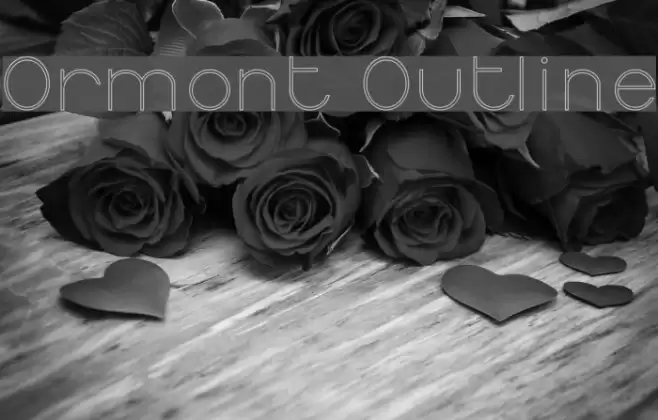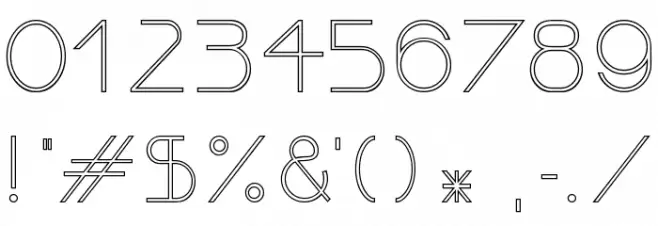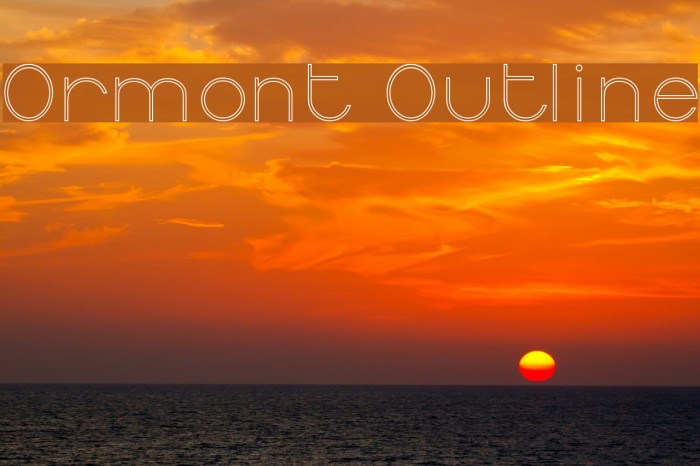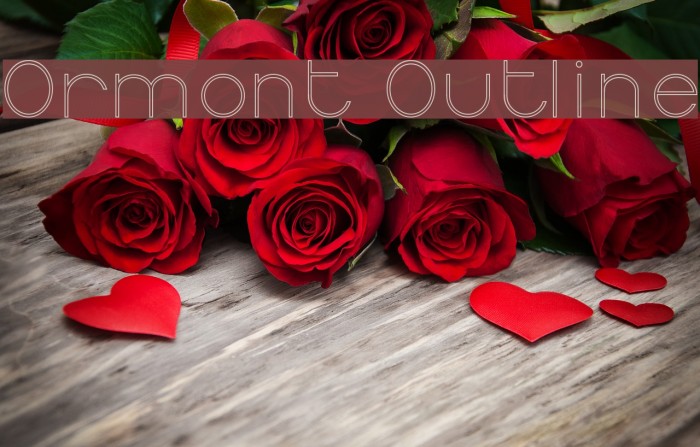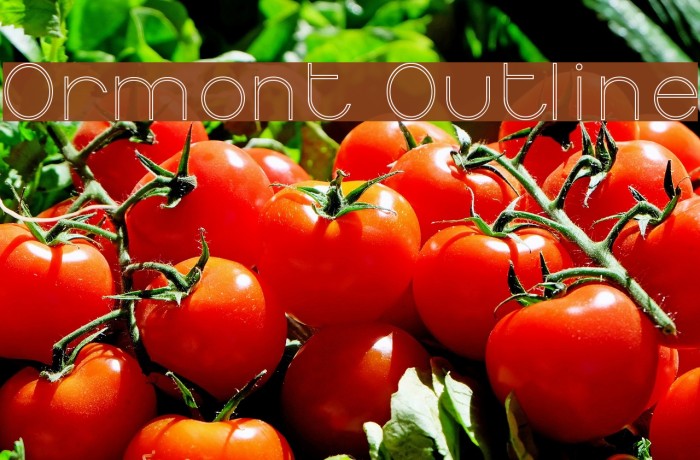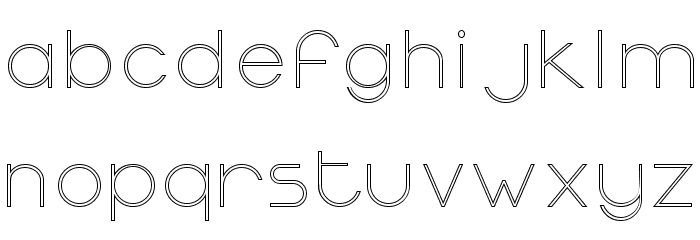
Ormont Outline Font
Ormont Outline Description
This font features a clean, geometric outline style that emphasizes modernity and simplicity. Each character is crafted with a consistent line weight, creating a harmonious and balanced appearance. The uppercase and lowercase letters share a uniform height, enhancing readability and visual appeal. The numerals and special characters are designed to complement the alphabet, maintaining the overall aesthetic. This font's outline nature gives it a unique, airy feel, making it suitable for projects that require a contemporary and stylish touch.
A modern, geometric outline font with consistent line weight and balanced design from Uncategorized fonts.